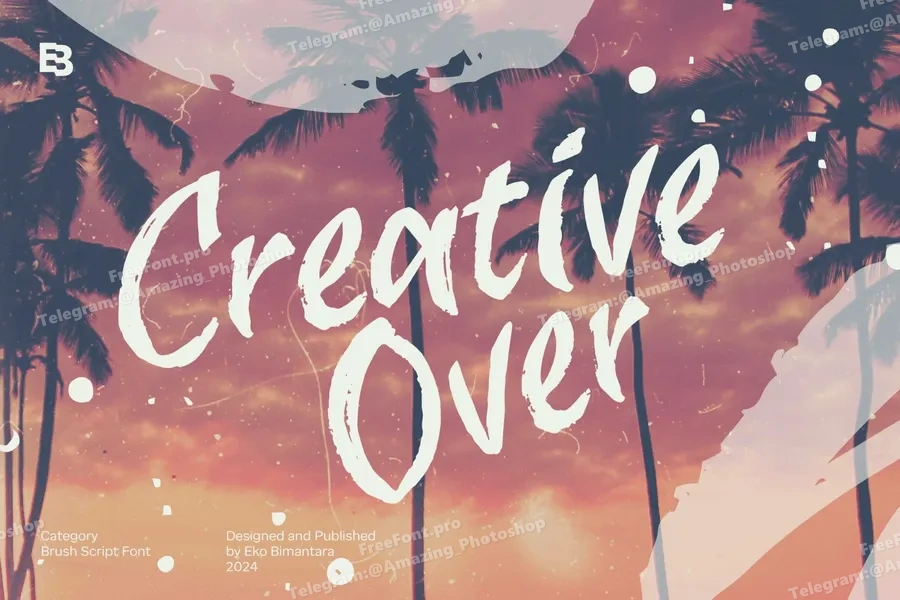
Creative Over is an expressive brush script font with realistic brush strokes, perfect for designs that need a bold and raw touch. Its dynamic and rugged style makes it well-suited for branding, product titles, and impactful headers. Ideal for large-size displays, it works seamlessly across various design applications such as websites, brand identities, product packaging, and broad graphic design projects, bringing an authentic and energetic feel to any creative work.